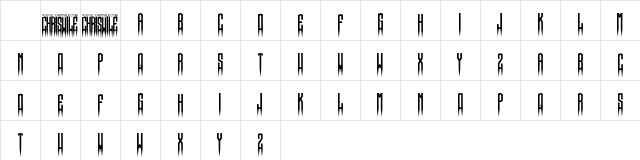
Complete Spiked Regular glyph index. Displaying only characters natively supported by Spiked Regular font.
Spiked is a composed and adaptable typeface that performs quietly and consistently across a wide range of design contexts.